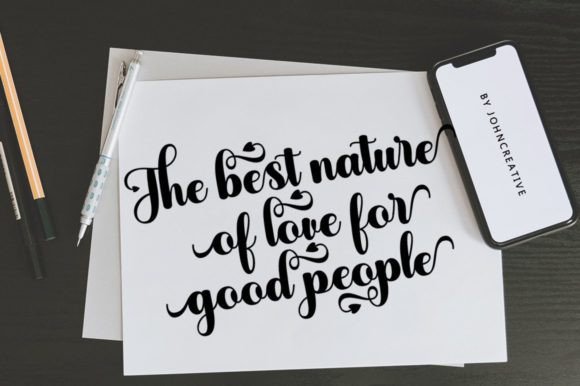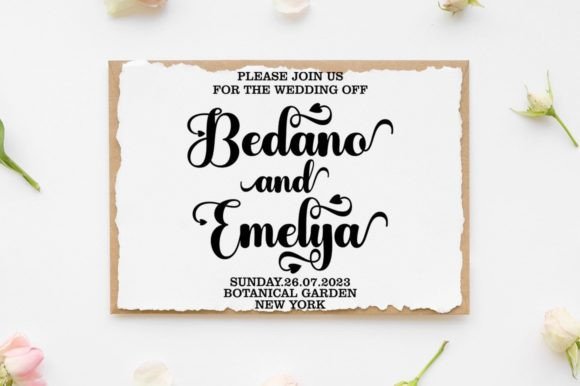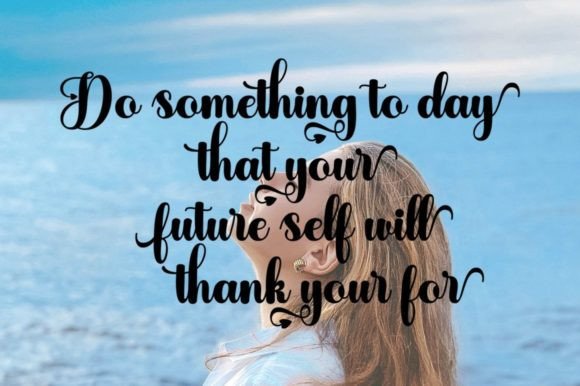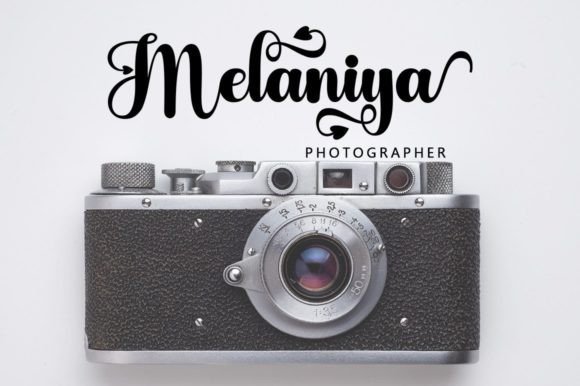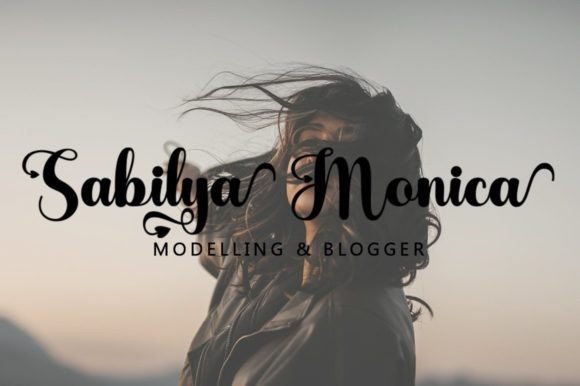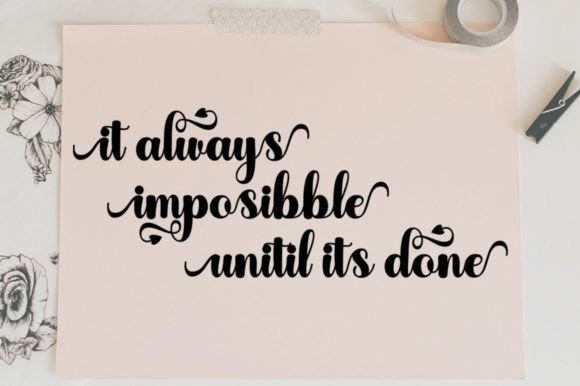
The Amelya Font: A Sophisticated Handwritten Delight for Designers and Crafters
I’ll never forget the moment I stumbled upon the Amelya font while working on a branding project for a boutique client. I was on a mission to find the perfect handwritten font that exuded elegance, charm, and a touch of sophistication. After hours of scouring through font libraries and testing dozens of options, Amelya caught my eye. Its beautiful, flowing script and versatility instantly won me over. In this article, I’ll share my experience with Amelya, its features, and how to make the most of this stunning font.
An Honest Review of Amelya Font
What I Love About Amelya ✨
- 💫 Sophisticated and elegant handwritten style that’s perfect for high-end branding and crafting projects
- ✅ PUA encoded for easy access to glyphs, swashes, and stylistic alternates
- 🎨 Highly versatile and adaptable to various design applications, from cards to labels and more
- 🔍 Exceptional legibility, even at smaller font sizes
While Amelya is an outstanding font, there are a few minor considerations to keep in mind:
- 🤔 Some users may find the font’s elegance and sophistication limiting for very casual or playful projects
- ⚠️ As with any script font, it’s essential to adjust font sizes and line spacing to ensure optimal readability
The Story Behind Amelya Font
Amelya’s story begins with its designer, who aimed to create a font that embodied the perfect blend of elegance, sophistication, and charm. Inspired by classic calligraphy and handwritten scripts, Amelya was crafted to bring a touch of luxury to various design applications. With its PUA encoding and extensive range of glyphs and swashes, Amelya has become a favorite among designers and crafters worldwide.
A: PUA (Private Use Area) encoding allows font users to access a wide range of glyphs, swashes, and stylistic alternates, making it easier to customize and enhance their designs.
Q: Can I use Amelya for crafting projects, such as card making and scrapbooking?
A: Absolutely! Amelya’s versatility and elegance make it an excellent choice for various crafting projects, from cards to labels and more.